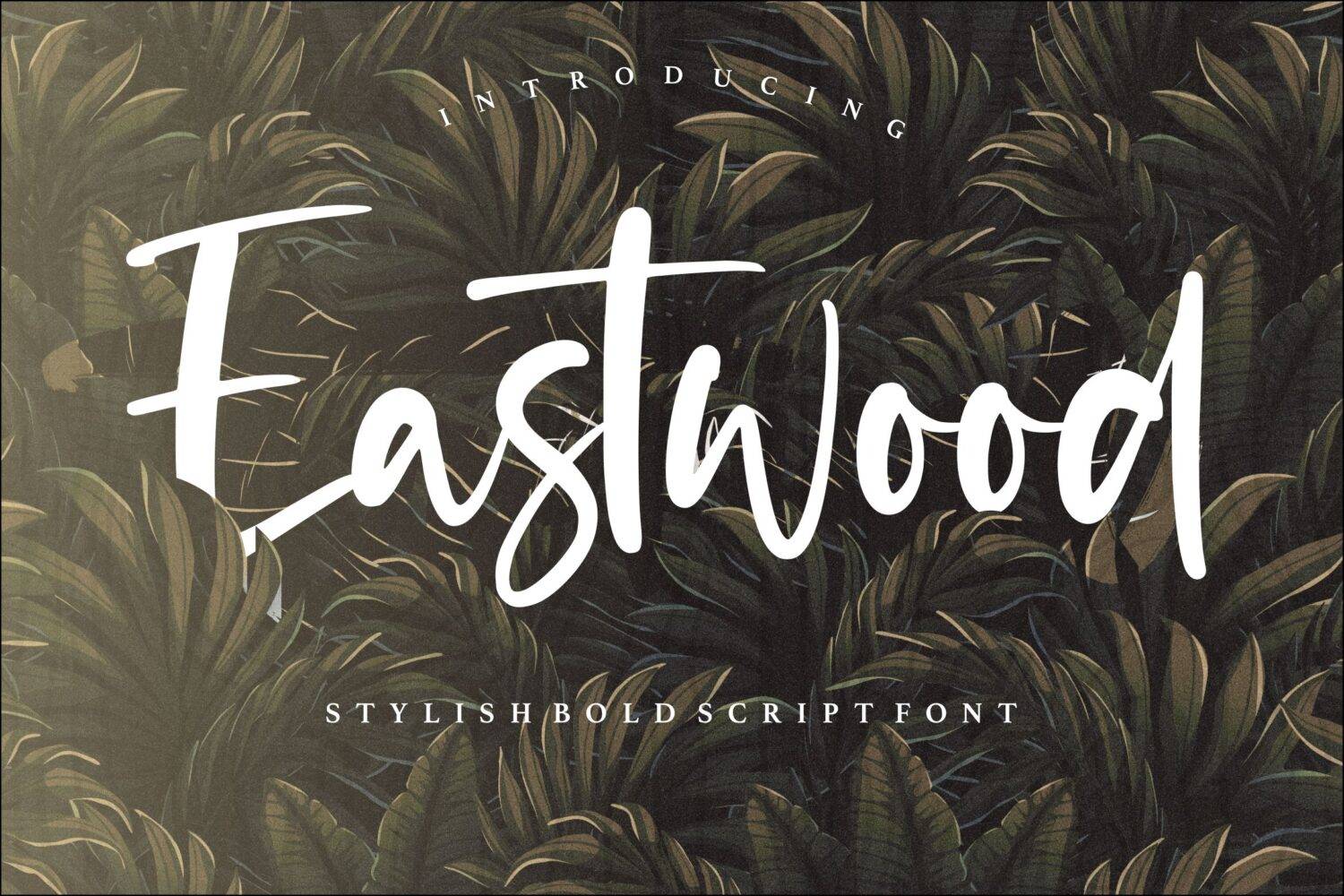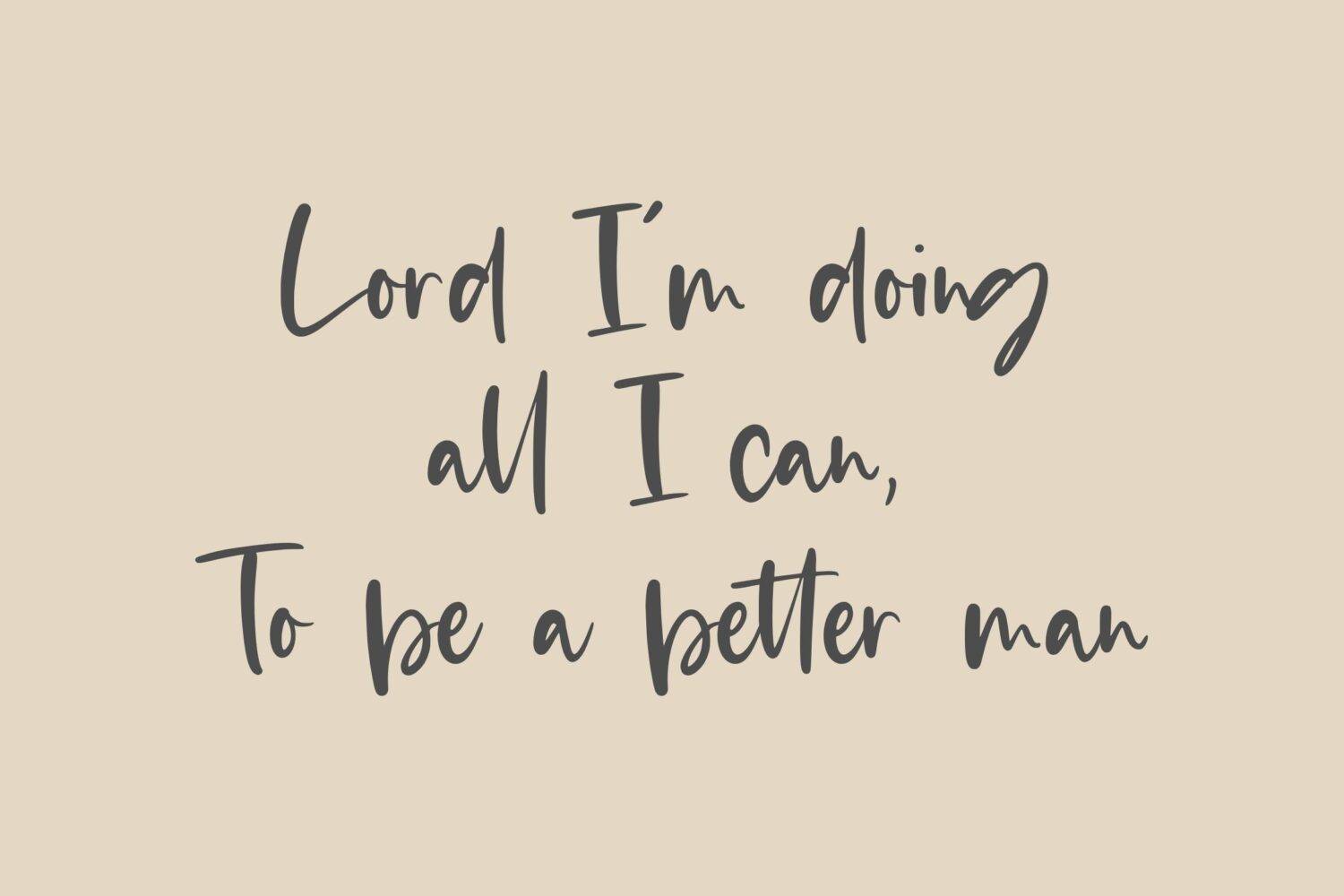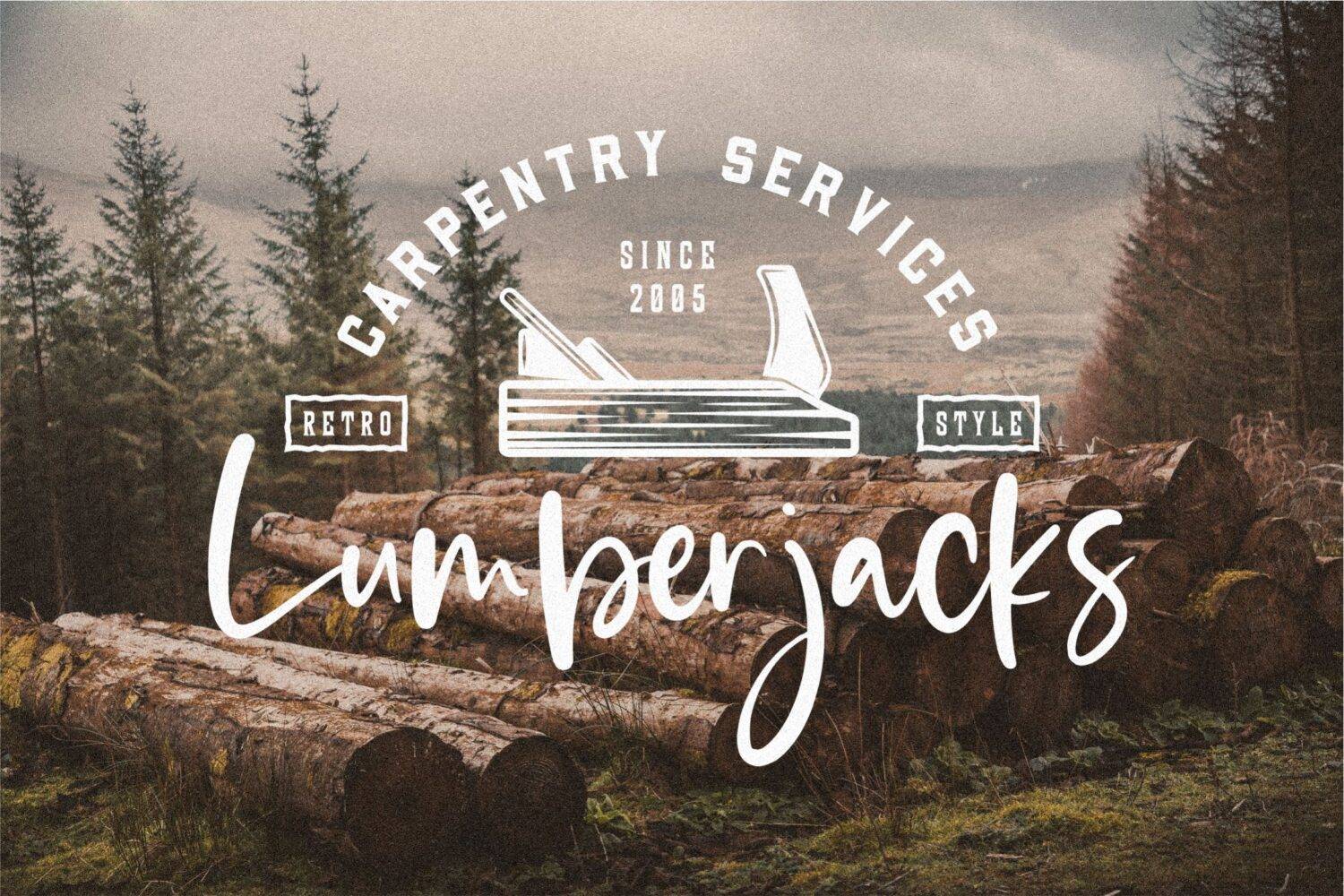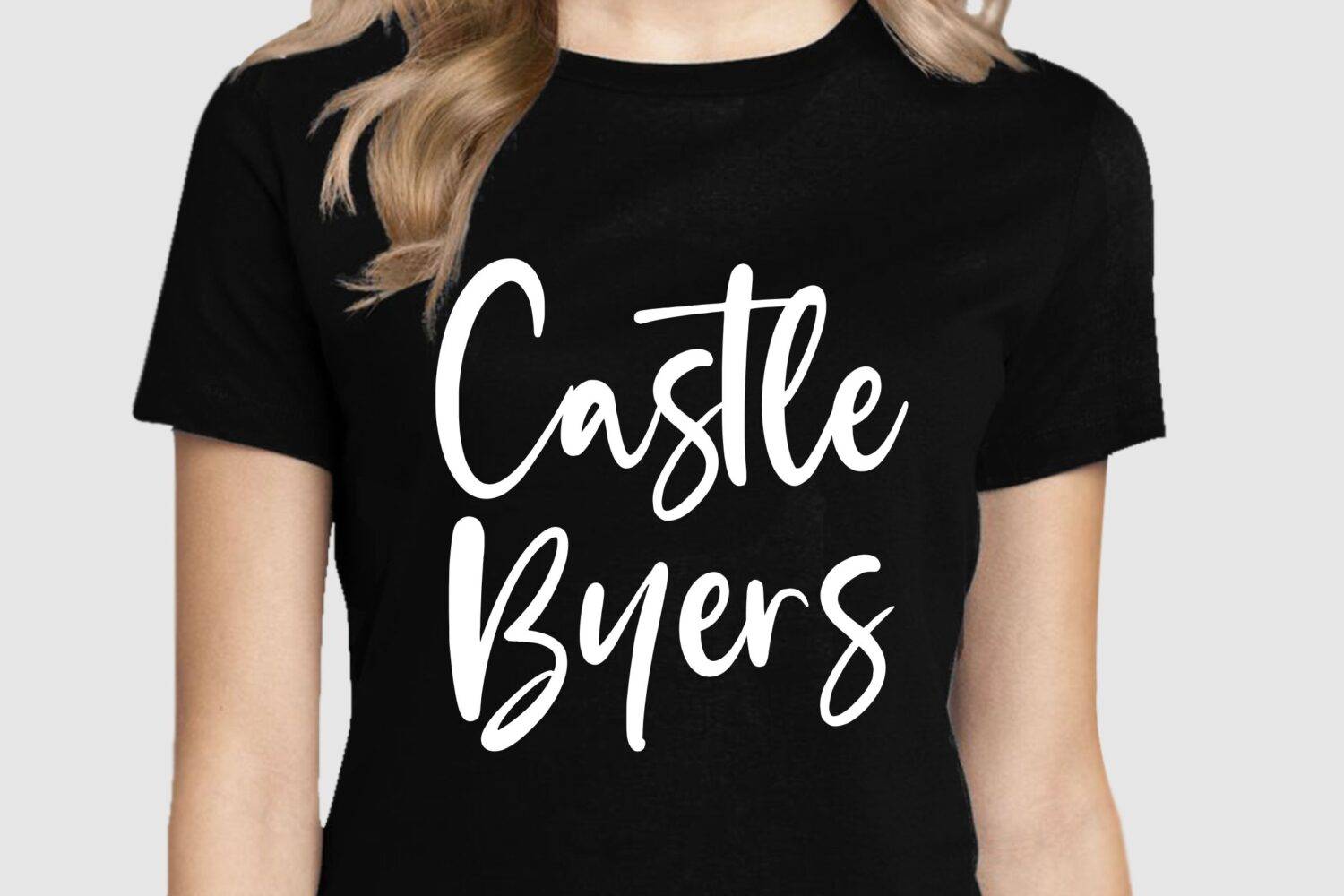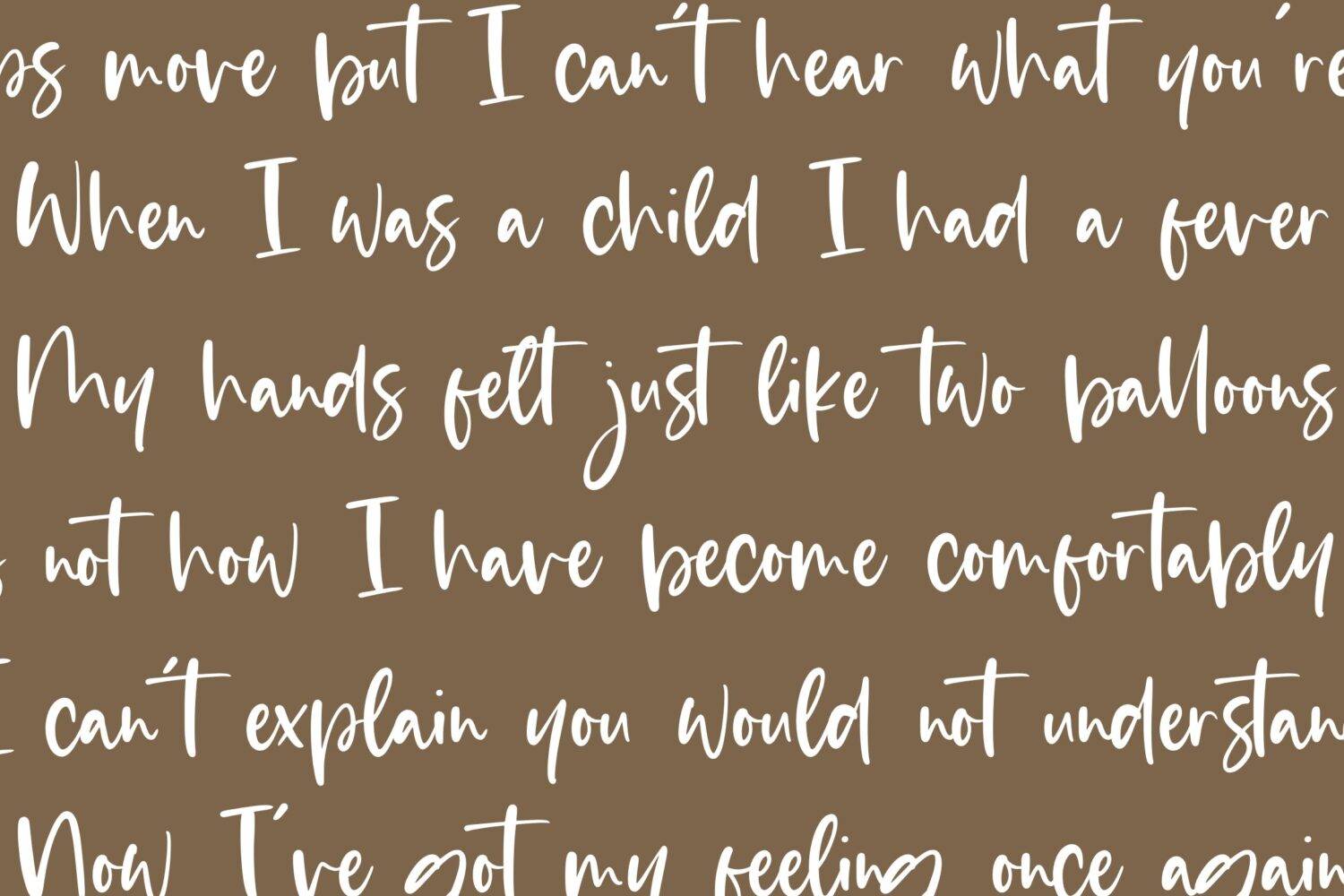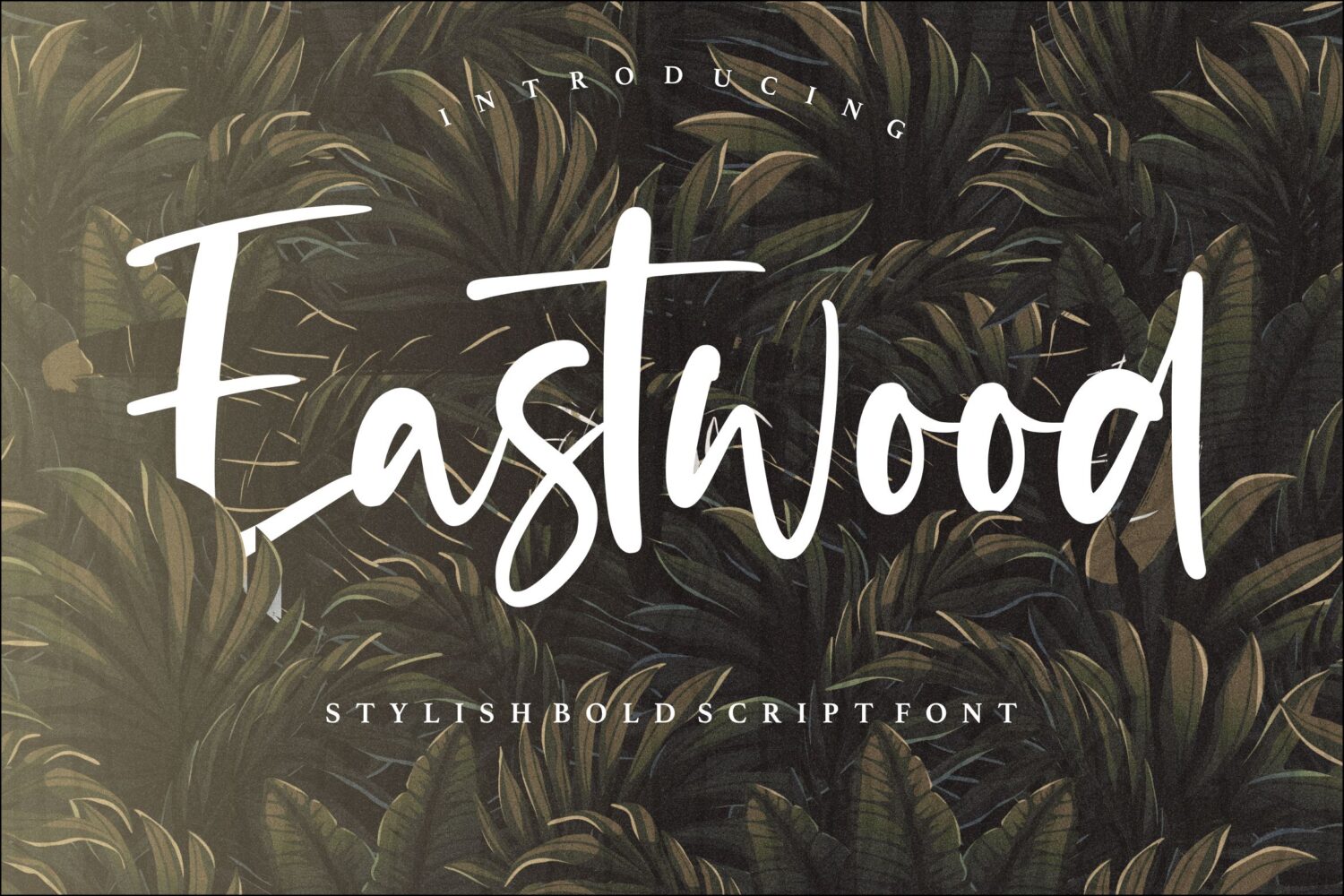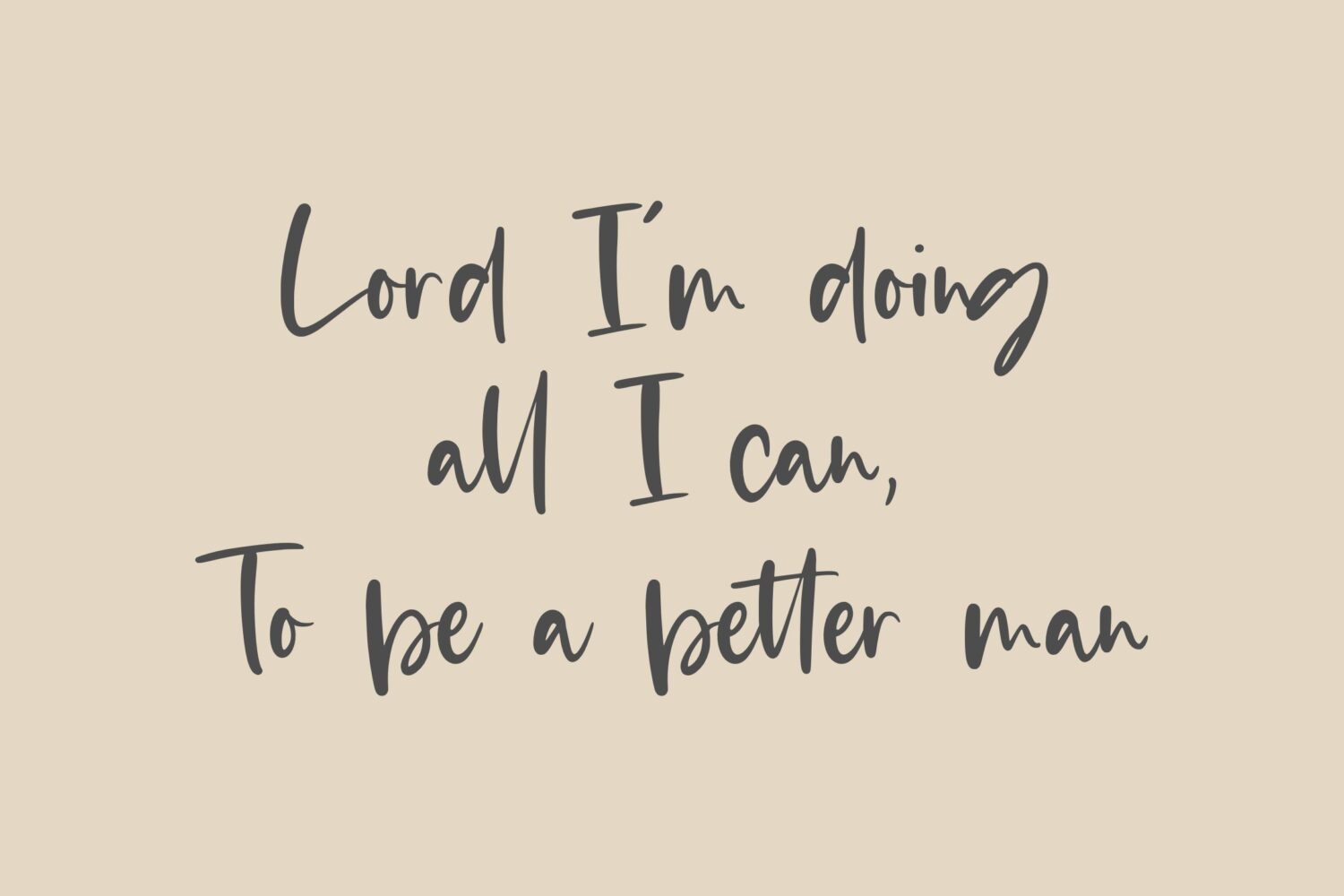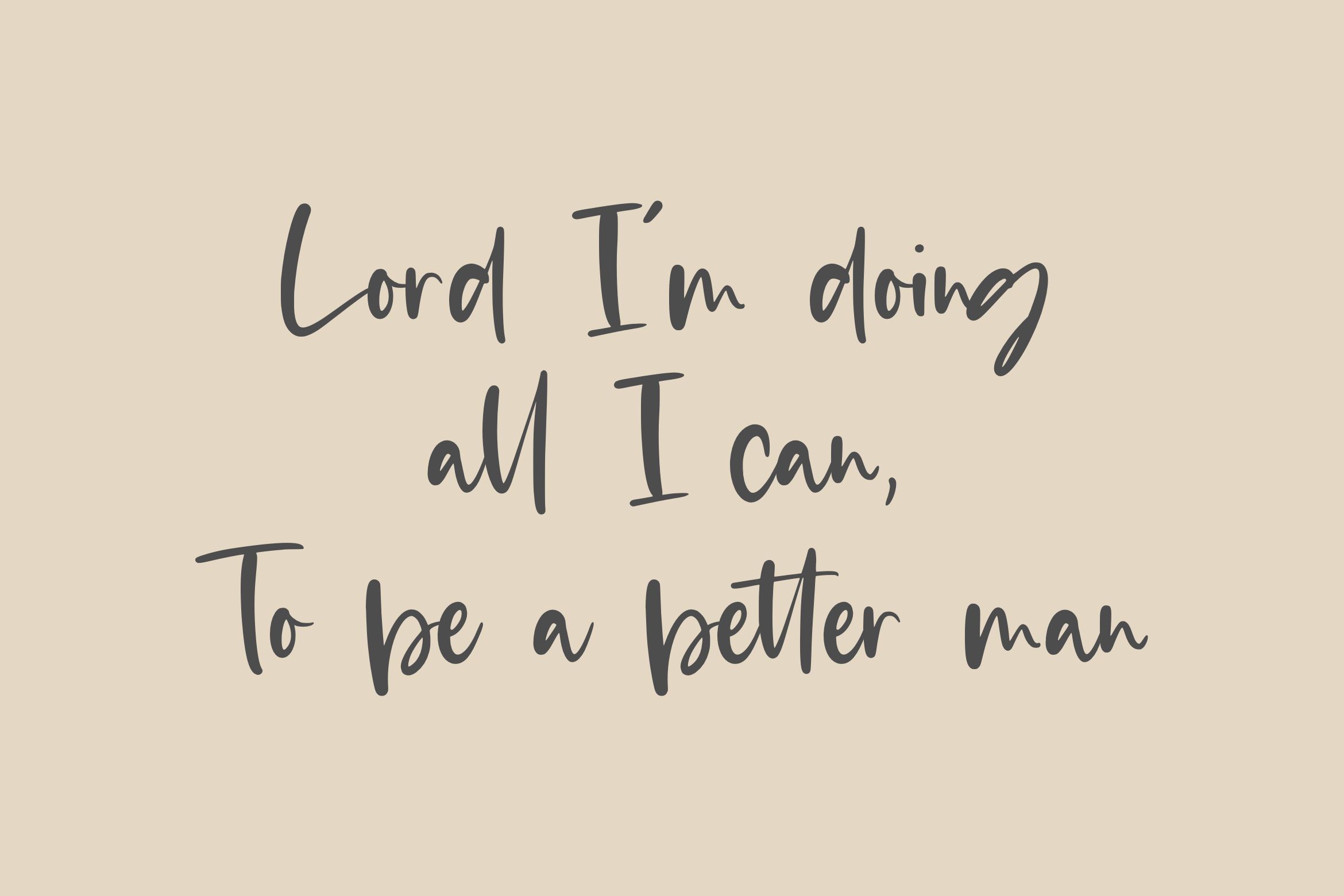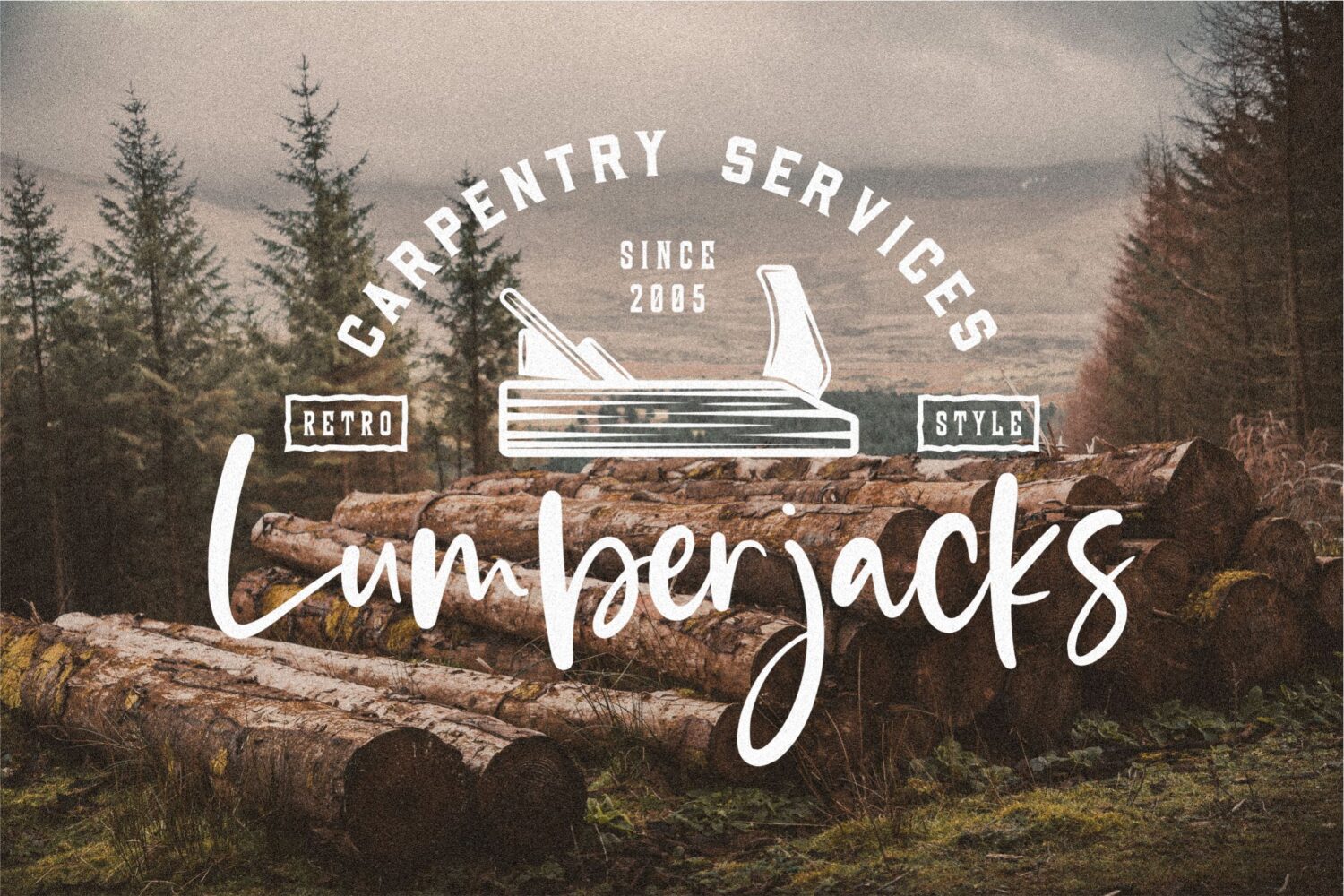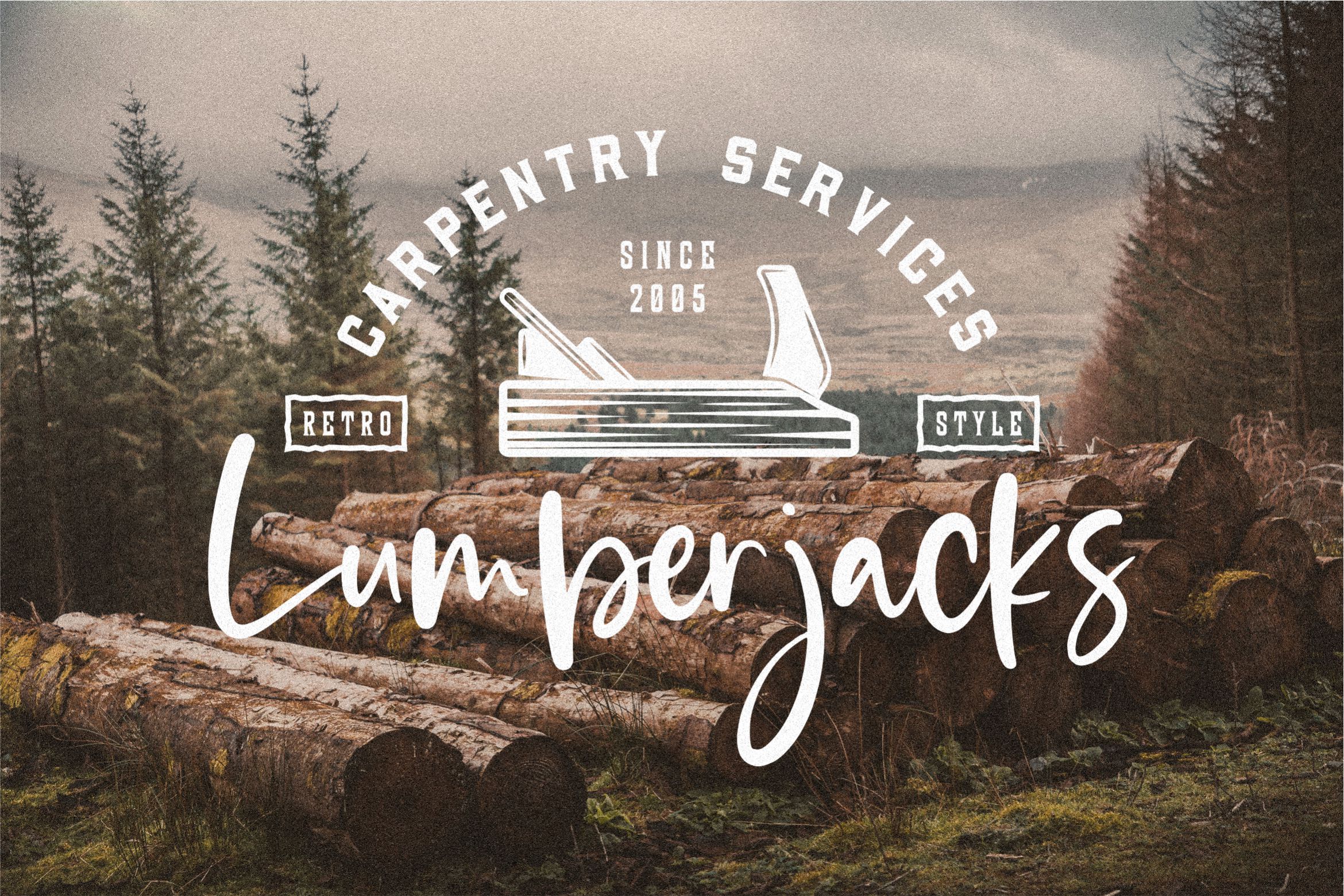
Eastwood Stylish Bold Script is a lively and bold handwritten script font with a playful, casual feel. Its tall, energetic letterforms feature uneven strokes and flowing connections, making it perfect for adding a personal and dynamic touch to creative projects, logos, and modern branding. This font works especially well for designs that want to convey warmth, approachability, and style with a contemporary edge.
Eastwood Stylish Bold Script Font
About Eastwood Stylish Bold Script Font